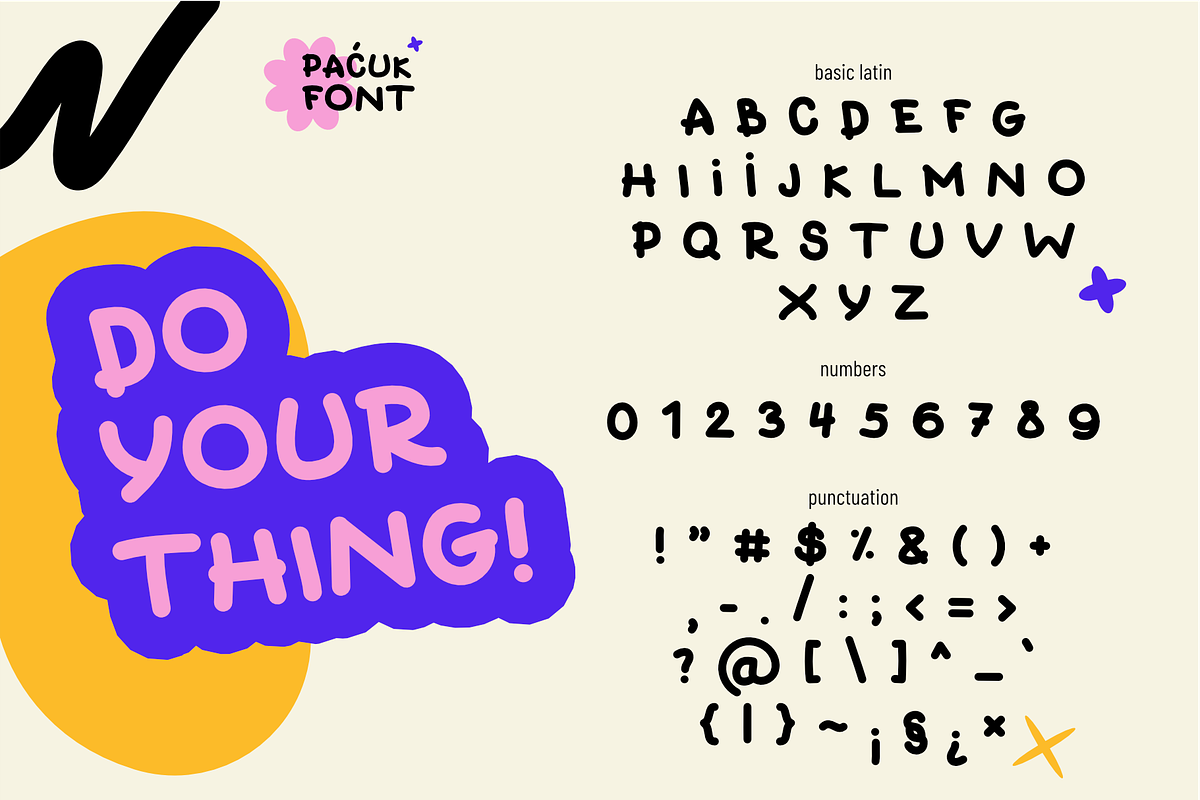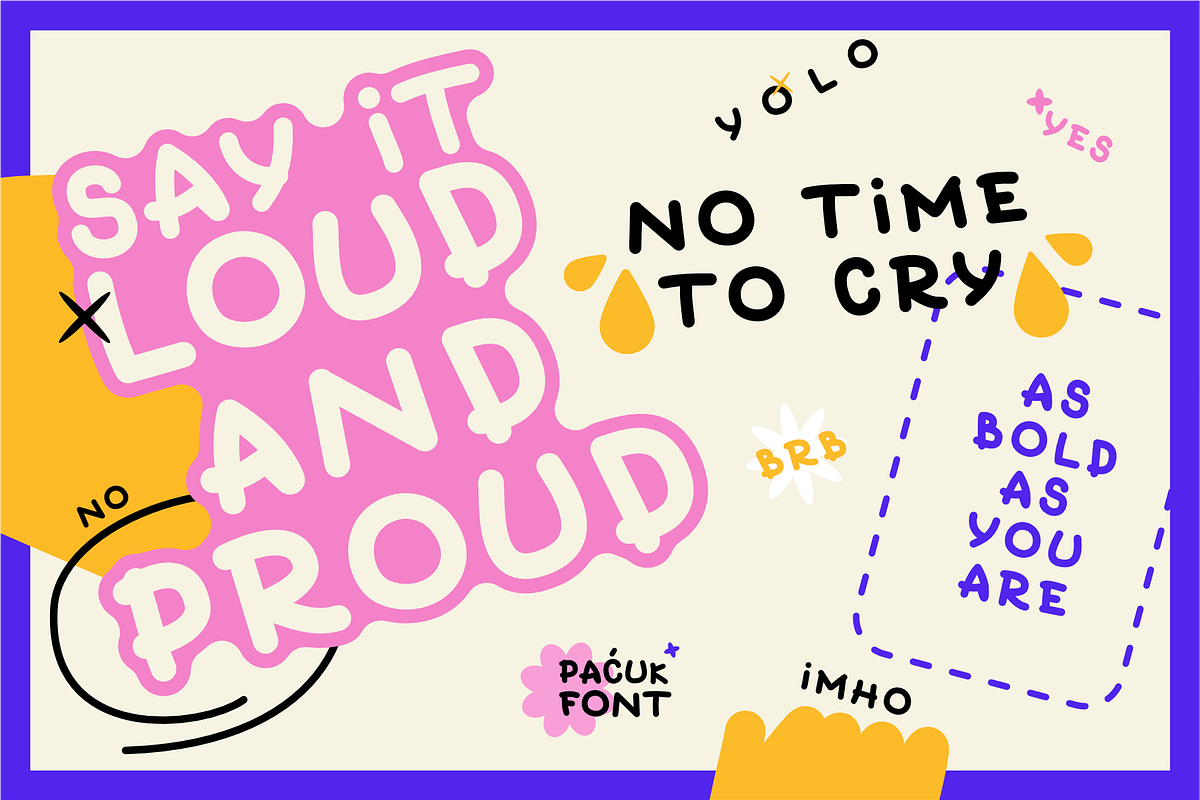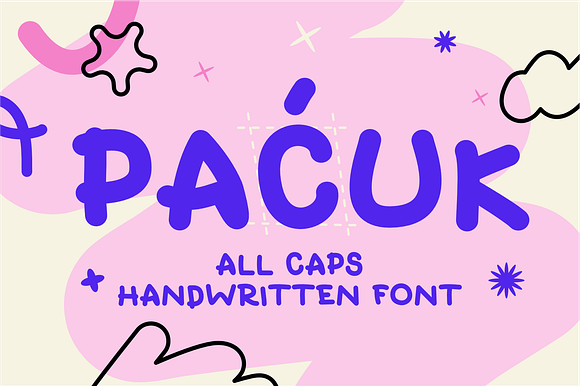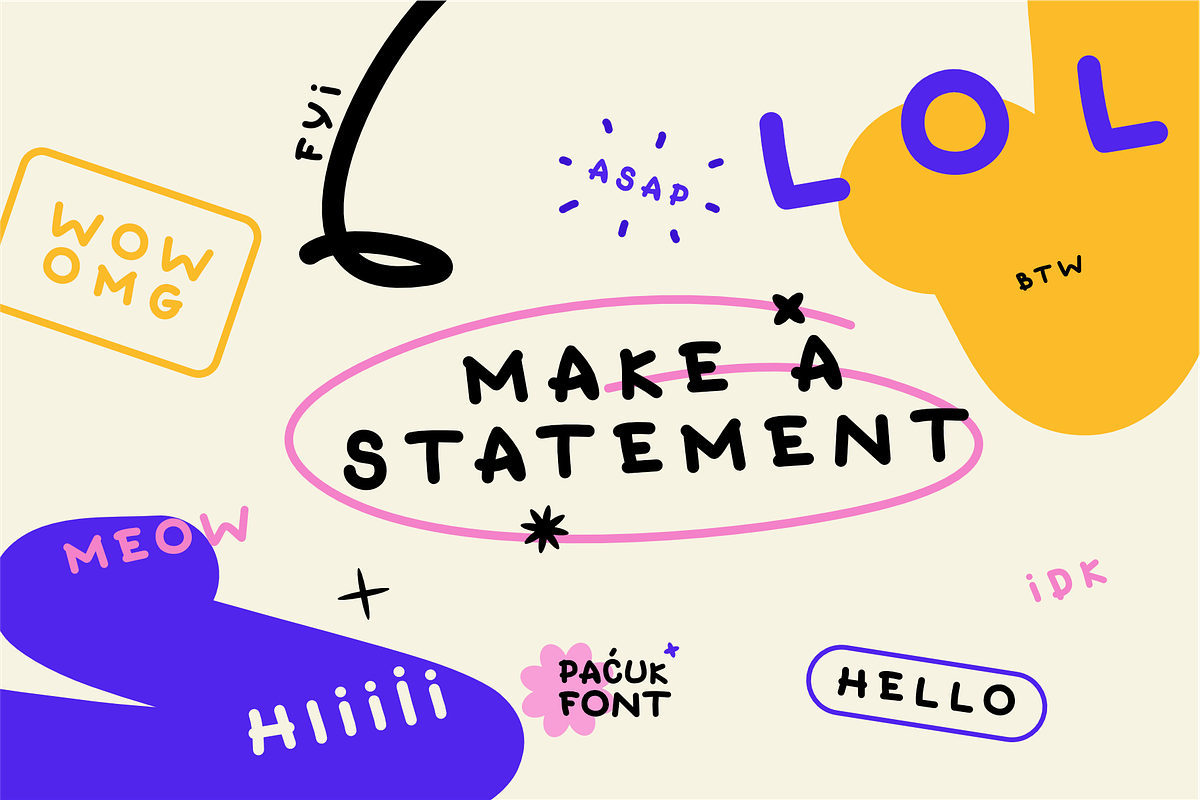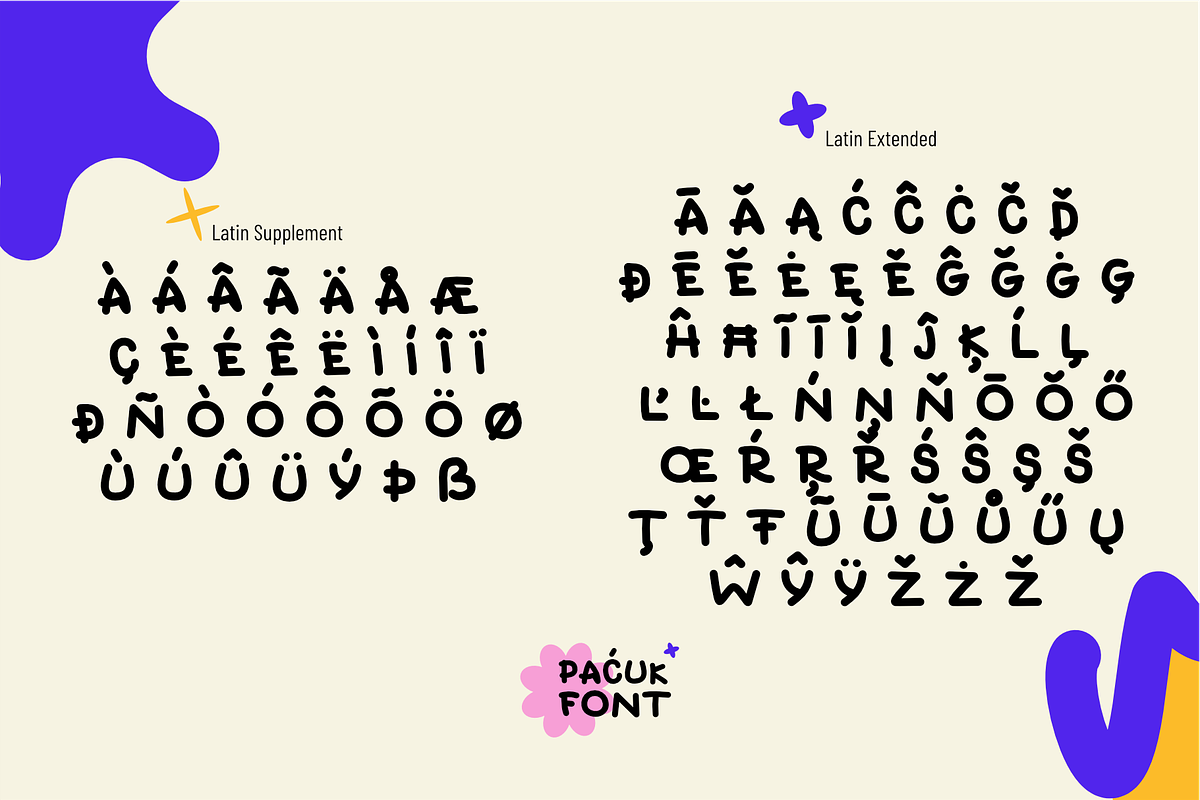
Pacuk - round handwritten font
Pacuk is a bold handwritten typeface with many alternative glyphs. Each character is carefully created in vector. The glyphs are round and soft, but also loud and expressive. This makes it perfect for striking posters, small and big quotes, cute postcards or stickers, packaging, advertising, and many other products.
Uppercase letters from A to Z